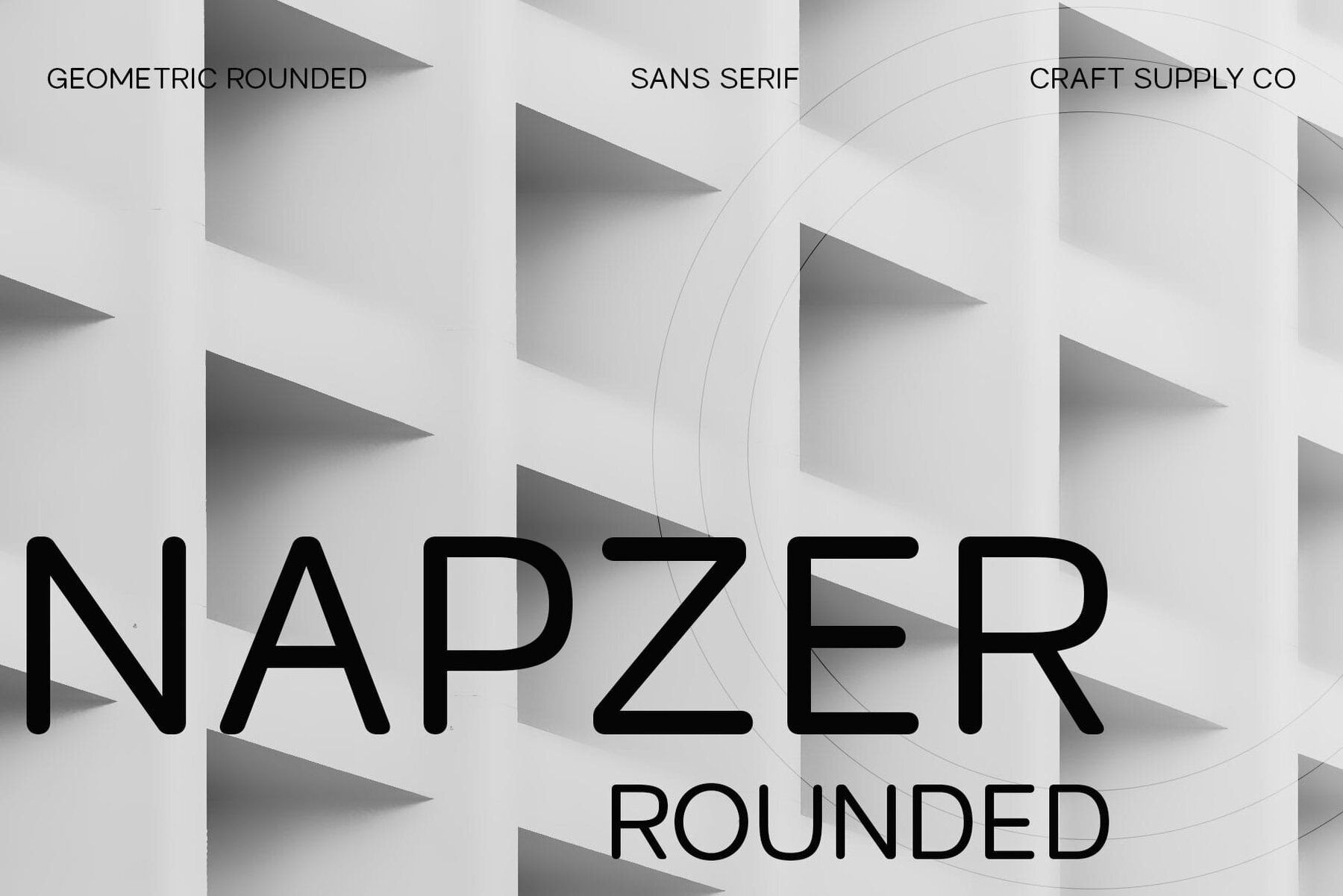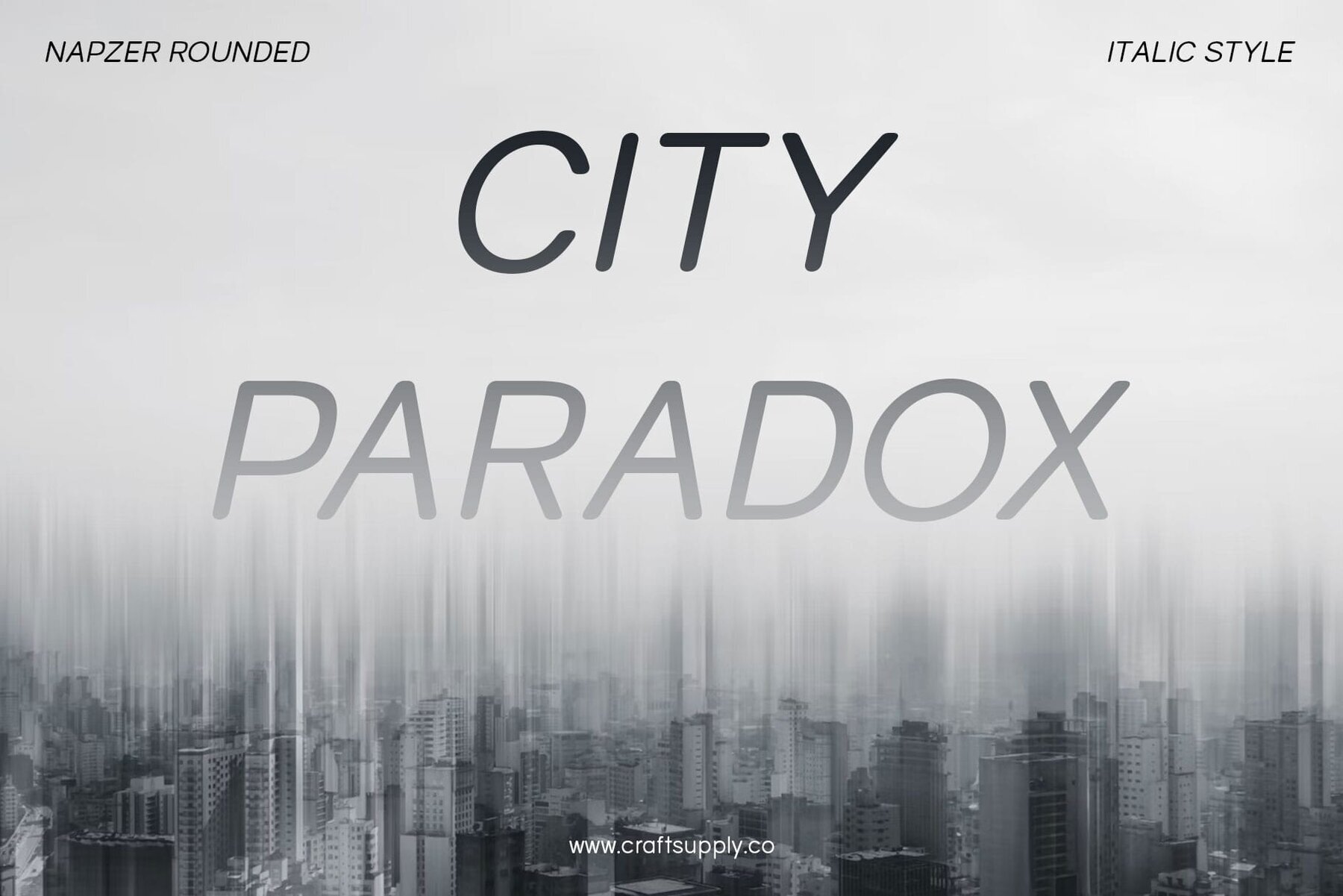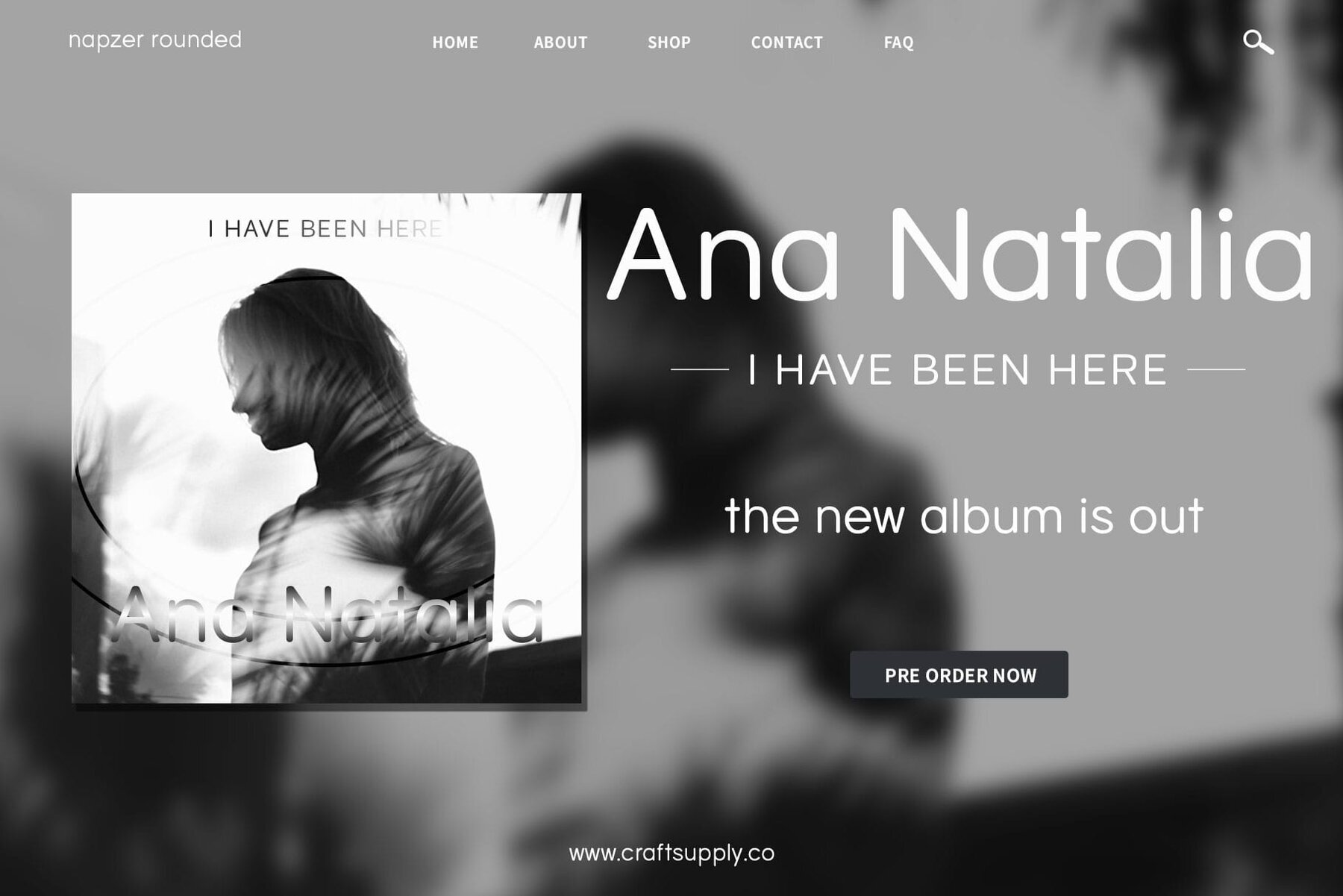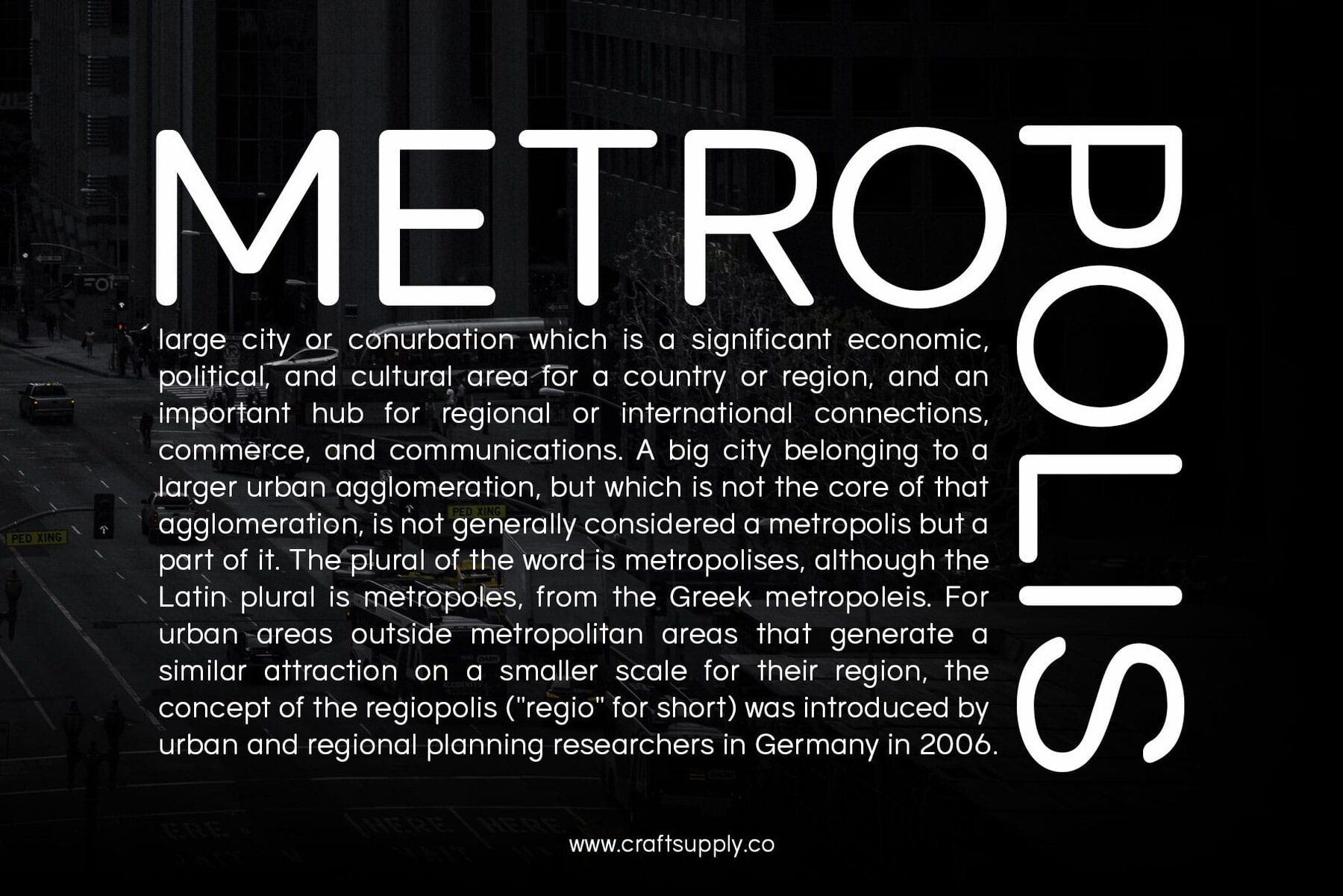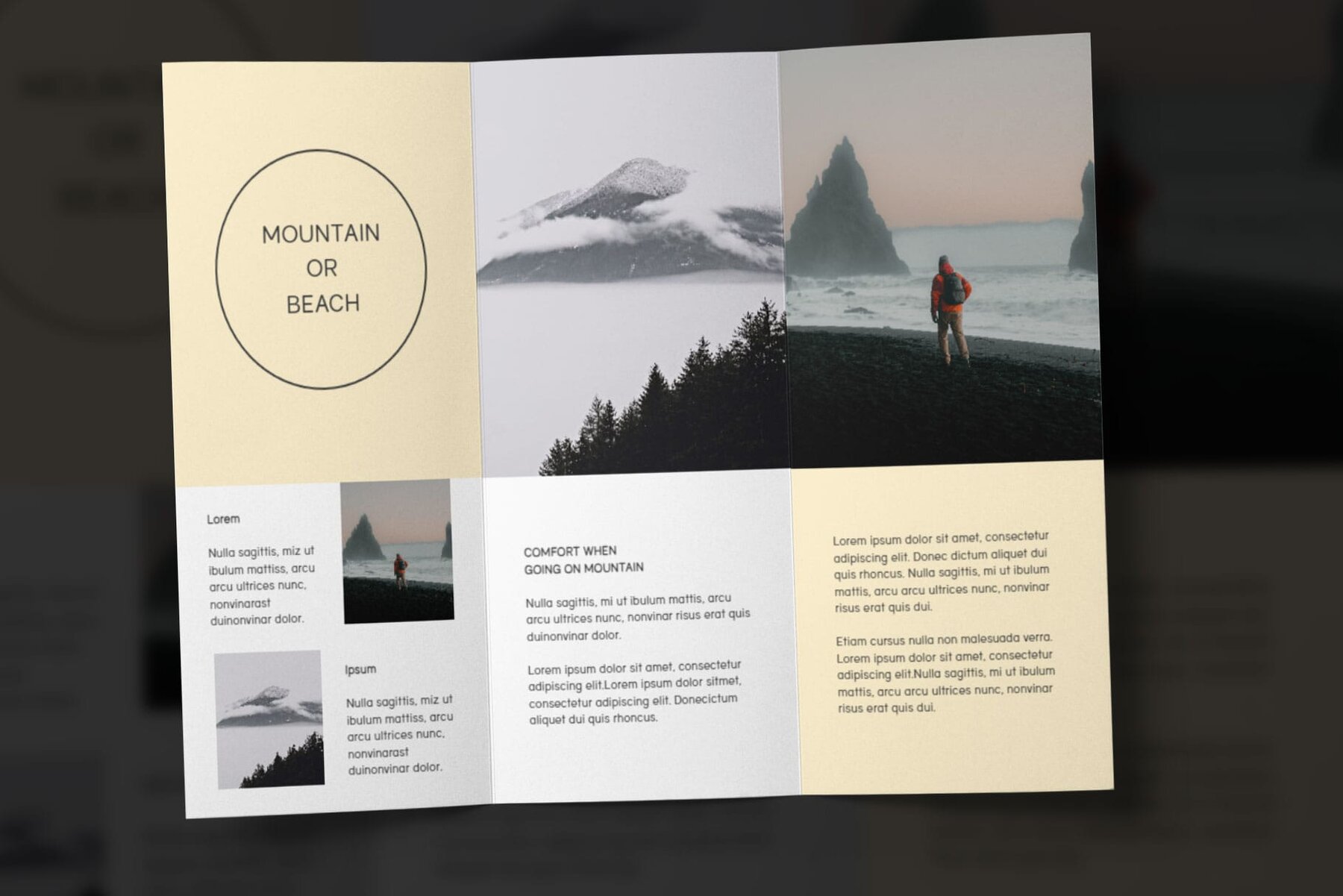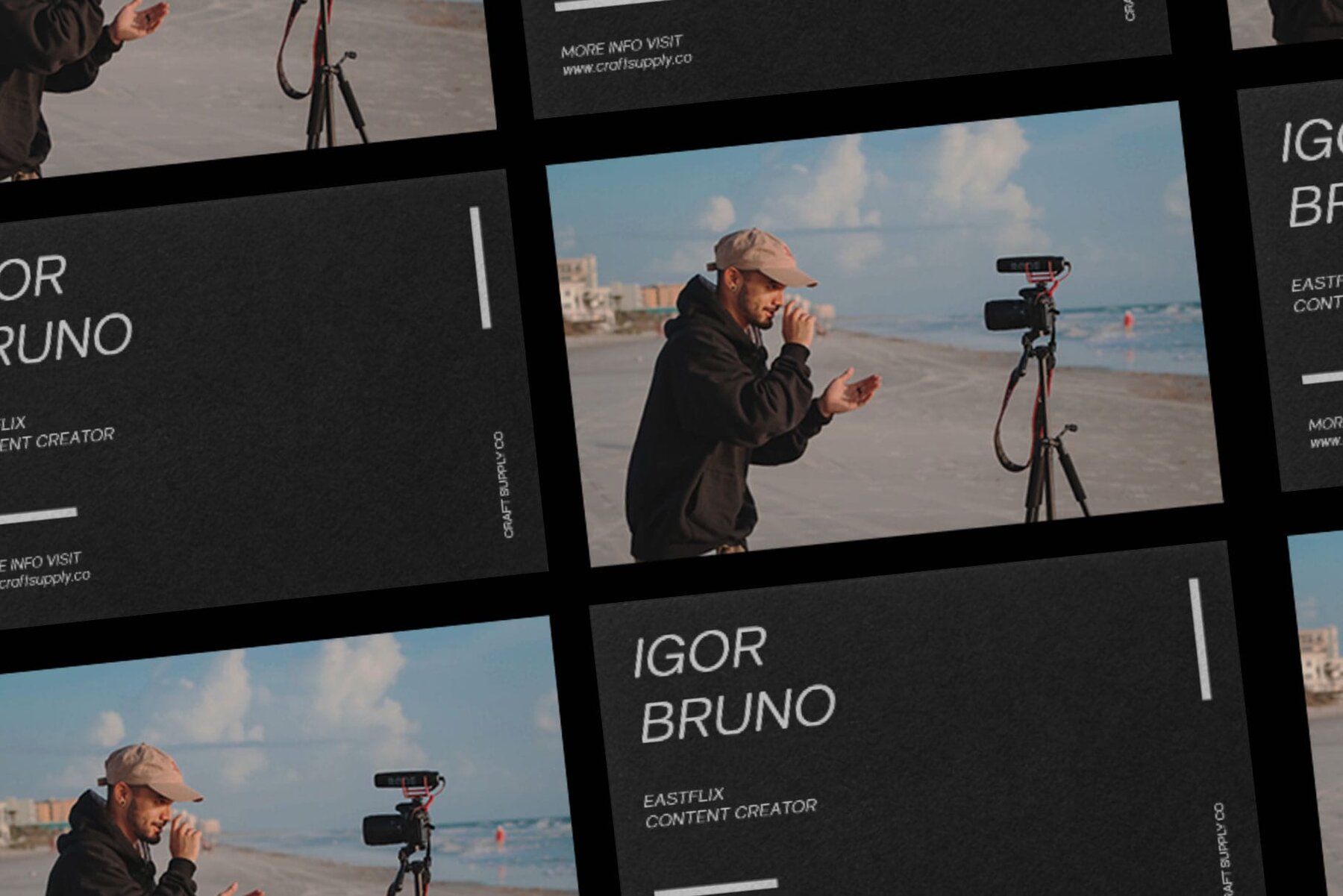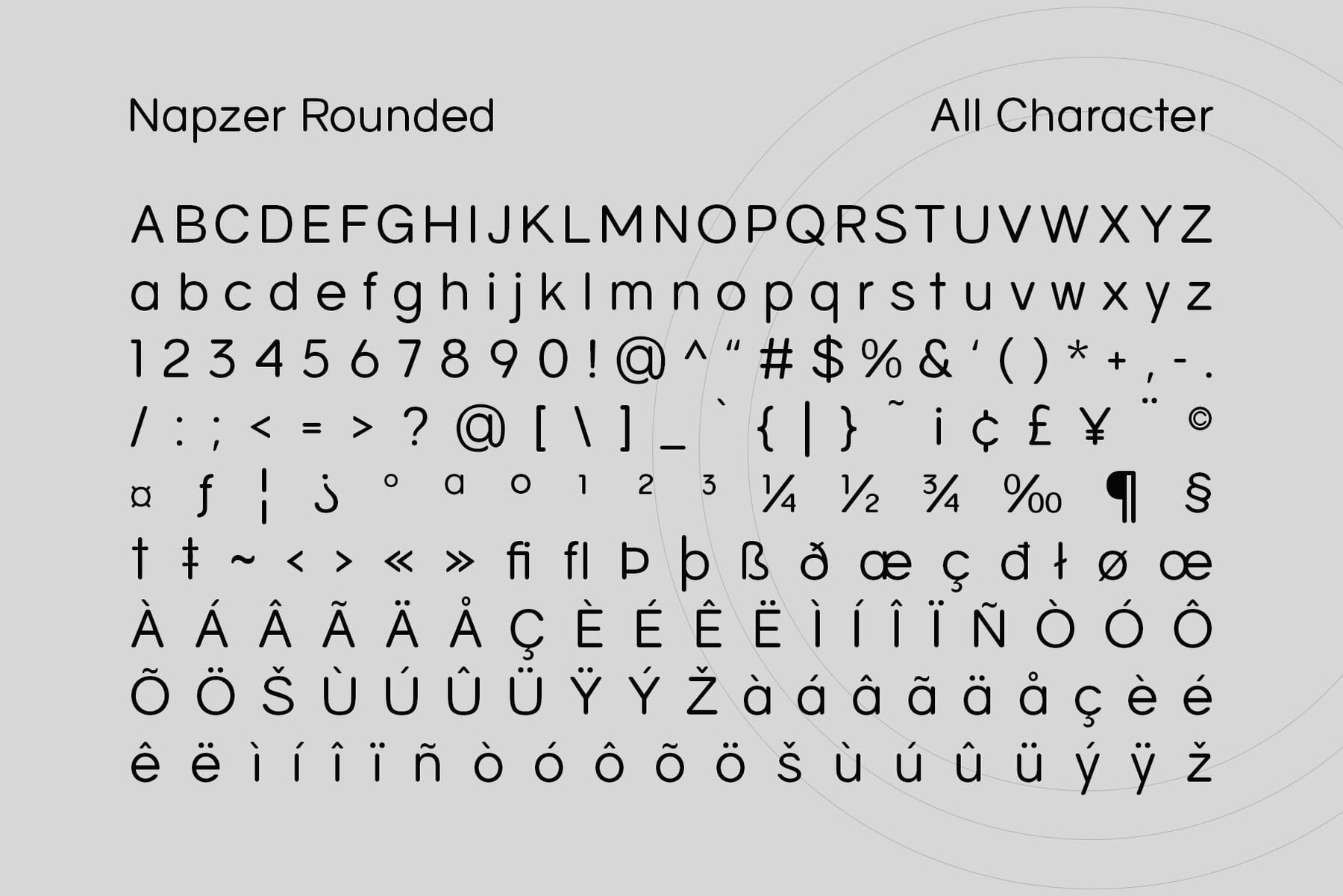
Napzer Rounded Font
Napzer Rounded: Embracing Soft Elegance Gentle Contrast, Rounded Edges Elegant Simplicity Versatile Softness Balancing Elegance and Legibility Soft Elegance for Every Project Features:
Napzer Rounded features a low-contrast ... design with softly rounded stem endings. This gentle contrast and rounded edges imbue the font with an air of elegance and sophistication.
Exuding an aura of refined simplicity, This font captivates with its understated charm. Its subtle design elements and rounded terminals lend a touch of sophistication to any project.
Designed for versatility, This font adapts effortlessly to a variety of design applications. From branding to editorial layouts, its soft, elegant appearance adds a sense of warmth and approachability.
While This font exudes elegance, it never compromises on legibility. Its carefully crafted letterforms ensure clear communication while maintaining a graceful aesthetic.
This font offers a perfect balance of soft elegance and versatility. With its low-contrast design and rounded details, it adds a touch of sophistication to any design project, ensuring both style and readability. Step into the world of Napzer Rounded and experience the beauty of soft elegance in typography.